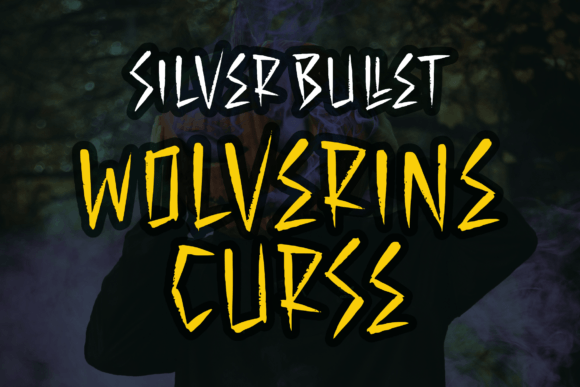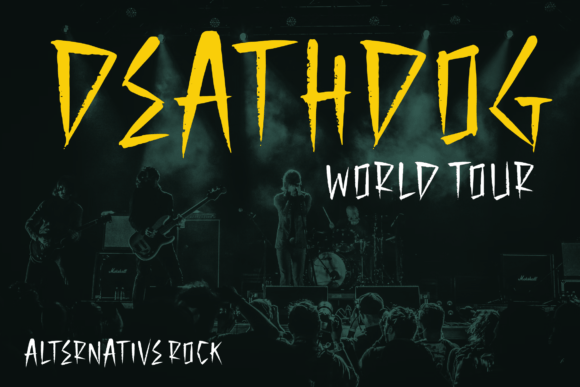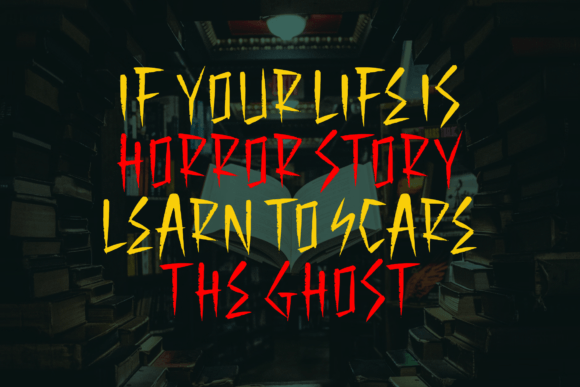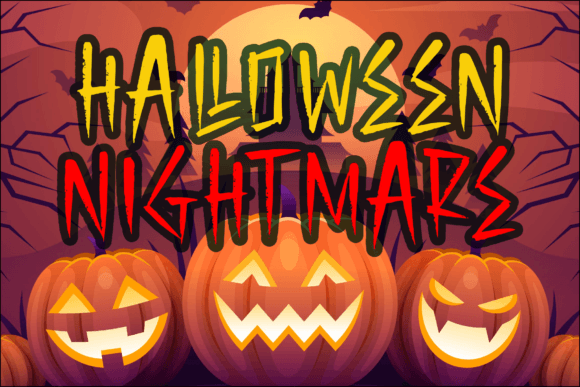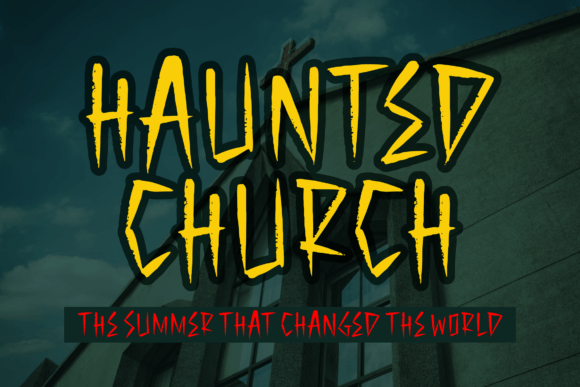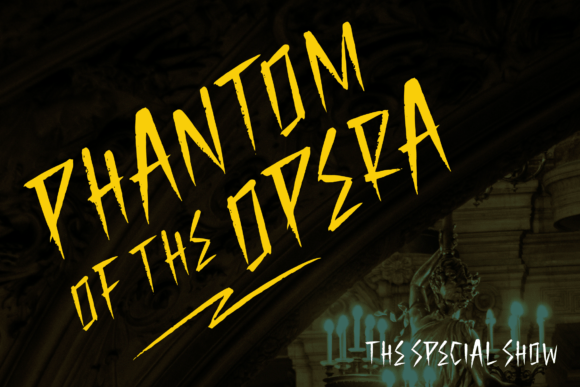
Introduction to Monster Hellowen Font
As a designer, there’s nothing quite like the thrill of working on a project that sparks your creativity and pushes your skills to the limit. For me, that moment came when I was tasked with designing a Halloween-themed poster for a local haunted house. I knew I needed a font that would perfectly capture the spooky atmosphere, and that’s when I stumbled upon the Monster Hellowen Font.
This free download has quickly become a go-to design resource for any project that requires a high-quality, scary vibe. With its transparent background and bold, eye-catching design, the Monster Hellowen Font is perfect for adding a touch of horror to any creative project.
Key Features of Monster Hellowen Font
- Unique Gothic-inspired design with intricate details and bold lines, perfect for creative projects and designs that require a touch of mystery and elegance.
- High-quality design with a transparent background, making it easy to use as a design resource in various creative projects, from logos to typography.
- Monolinear and sans-serif-inspired design elements, adding a touch of modernity and sophistication to any creative project.
Honest Review: Monster Hellowen Font
I recently stumbled upon the Monster Hellowen Font and was excited to give it a try. As a designer, I’m always on the lookout for high-quality fonts that can elevate my creative projects.
Here are the things that I like about the Monster Hellowen Font:
- ✨ It has a unique and quirky design that can add a lot of personality to a project.
- ✨ It’s perfect for projects that require a bold and playful feel.
- ⚠️ The font may not be suitable for projects that require a professional or formal look.
- ⚠️ It may not be as versatile as other fonts, so you may need to use it in conjunction with other fonts to achieve the desired effect.
Overall, I think the Monster Hellowen Font is a great addition to any designer’s toolkit. It’s perfect for creative projects that require a bold and playful touch. Just be sure to use it wisely and in the right context.
The Monster Hellowen Font is perfect for creative projects such as logos, posters, flyers, and social media graphics. It’s also great for use in presentations, documents, and websites that require a unique and eye-catching design element.
Yes, the Monster Hellowen Font has a transparent background, making it ideal for use on images or designs with complex backgrounds. This feature allows the font to blend seamlessly into your design, adding a professional touch to your creative project.